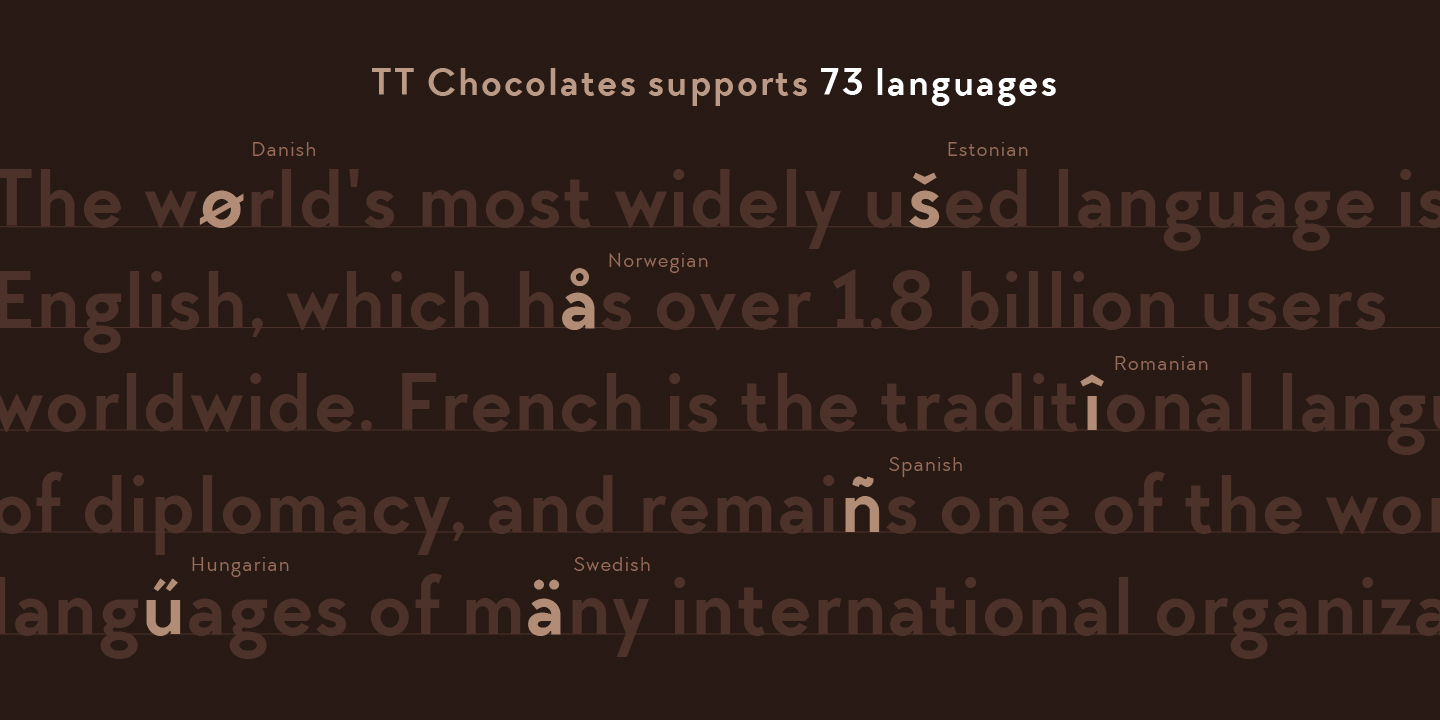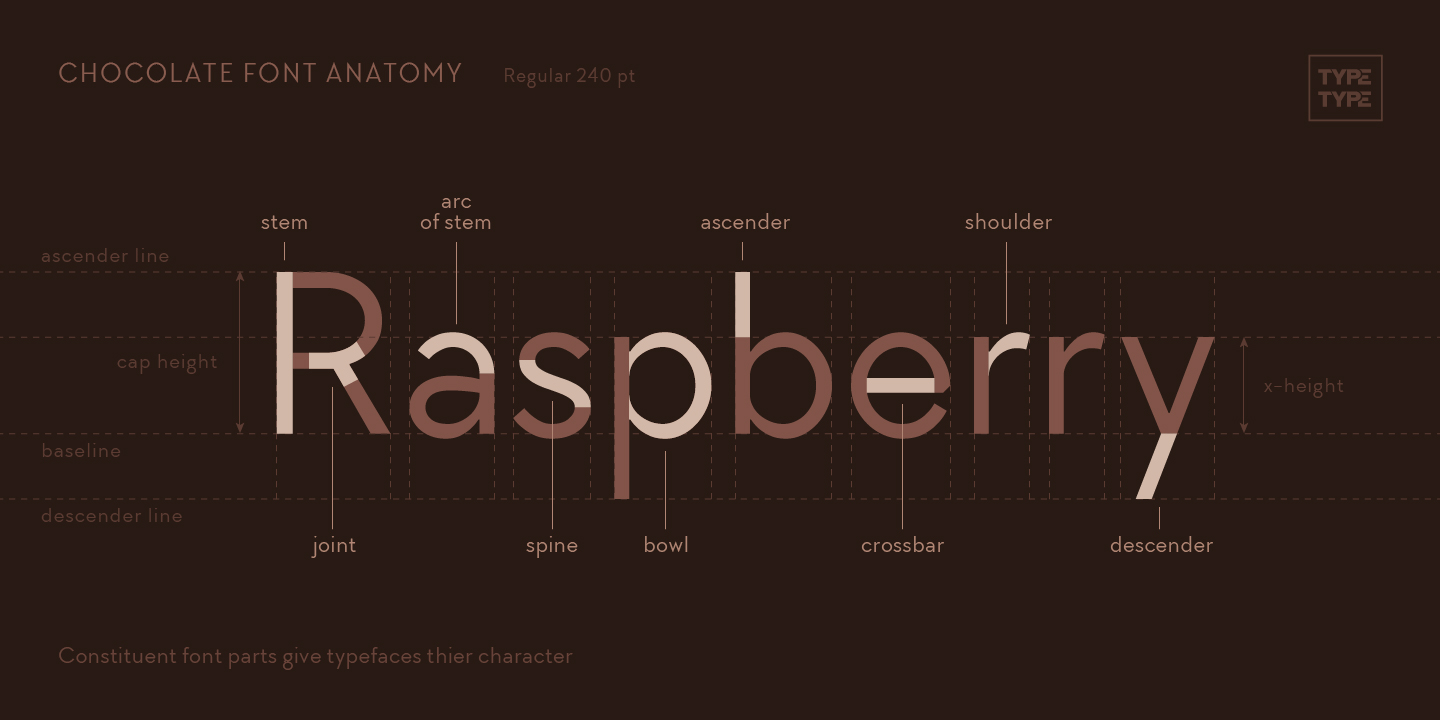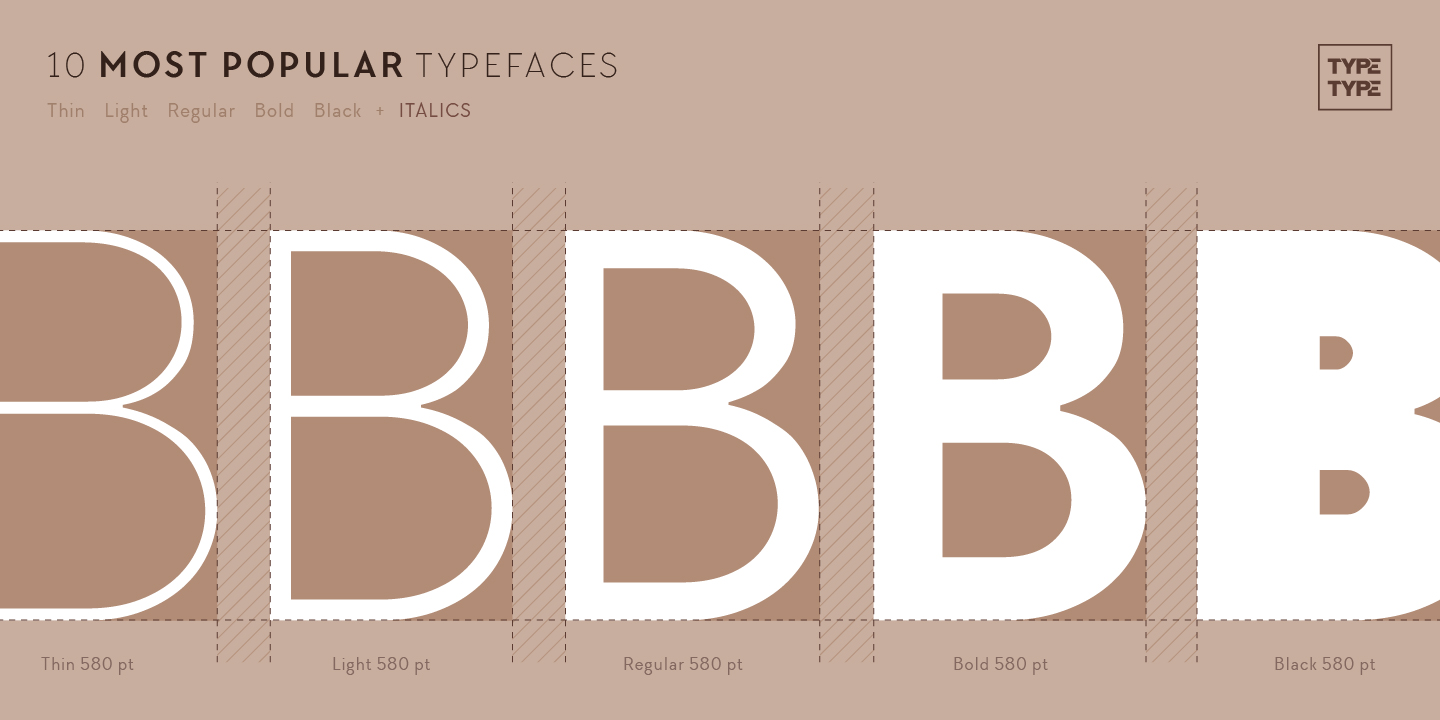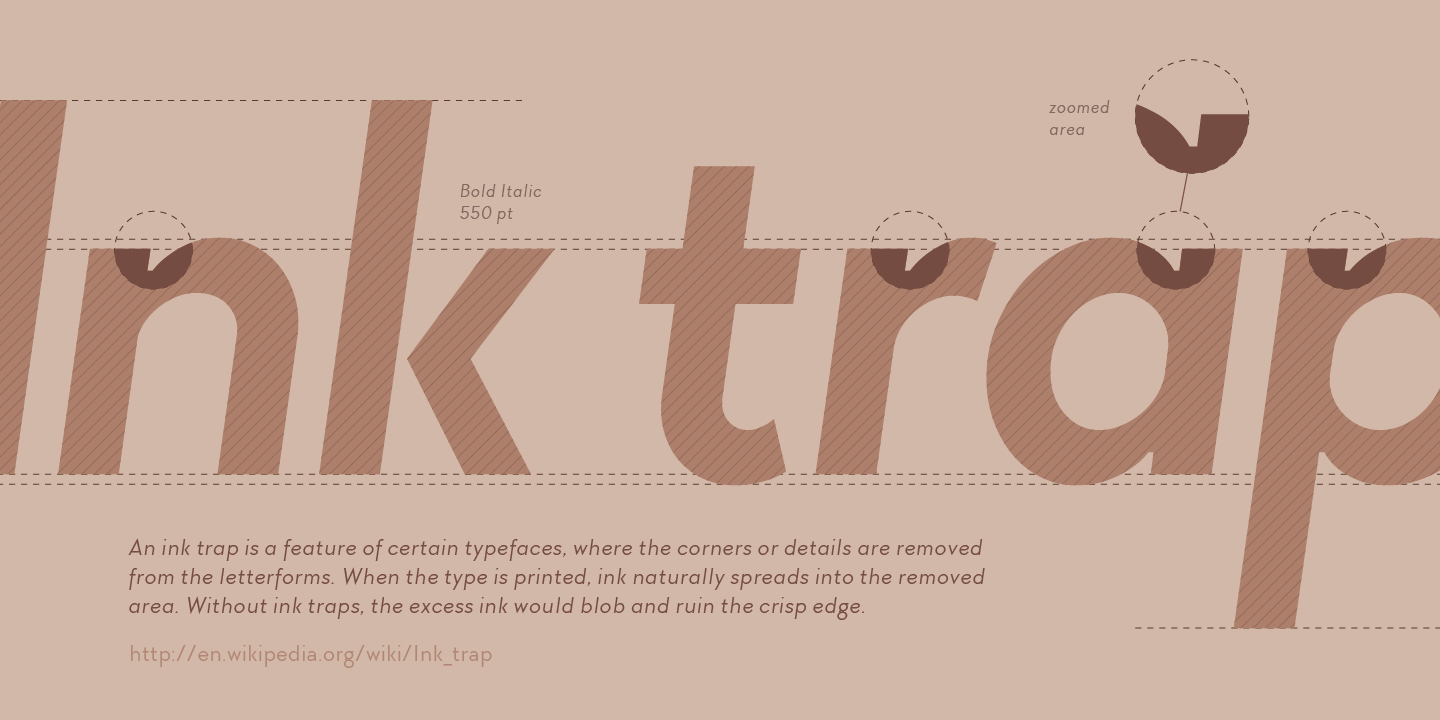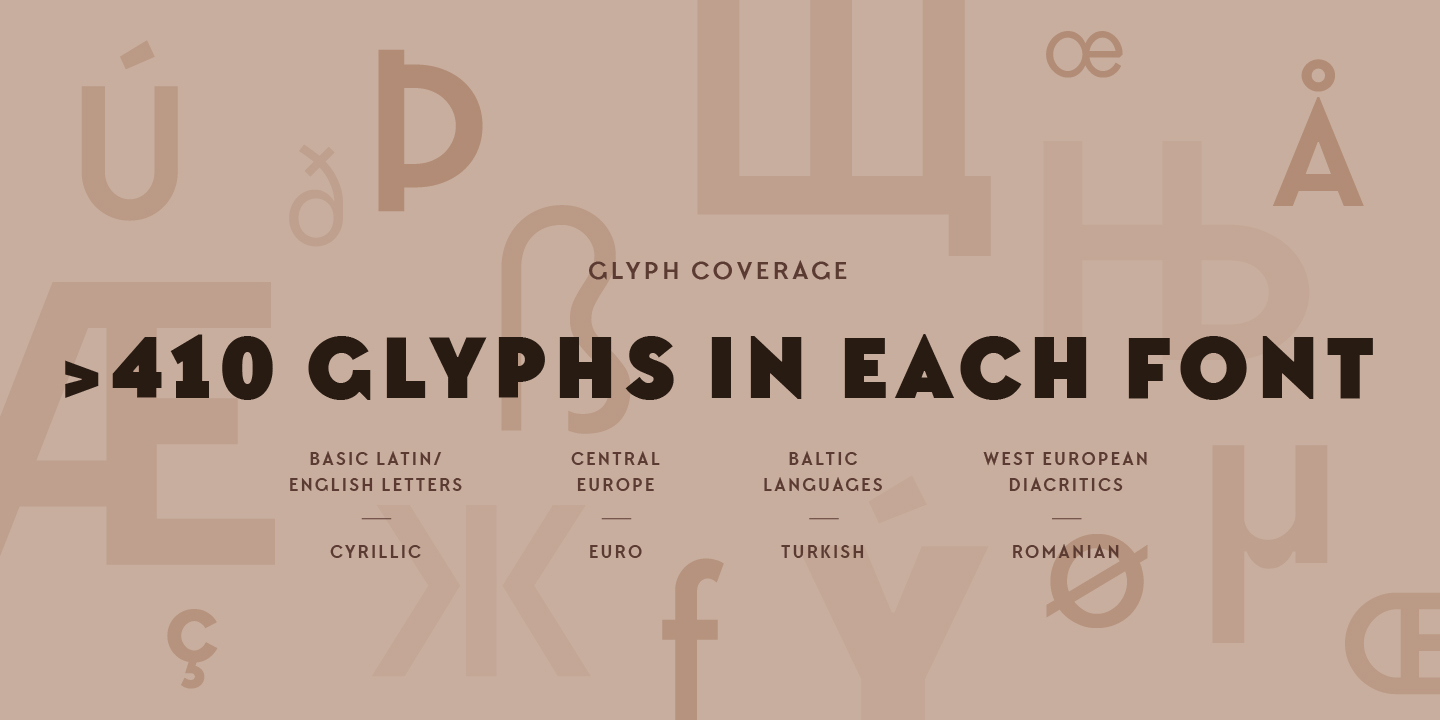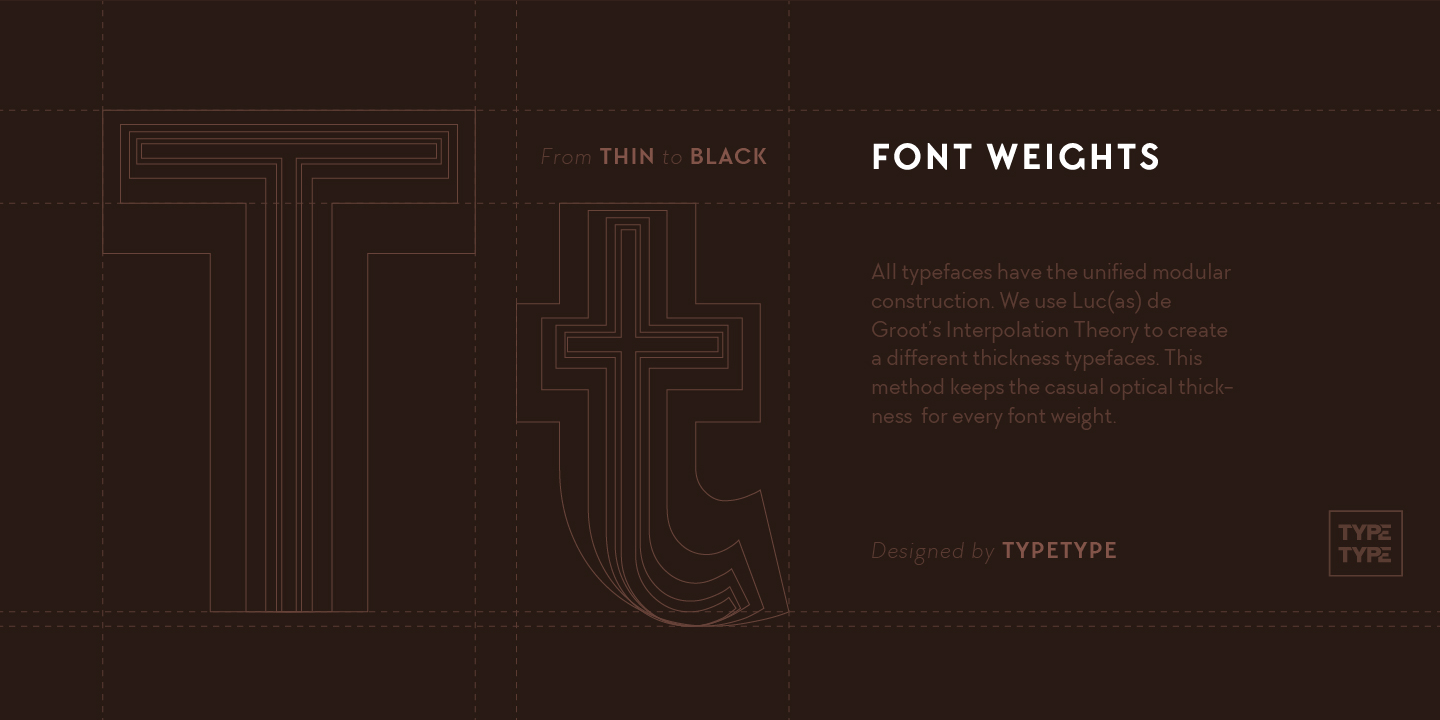
by TypeType
TT Chocolates is a geometric grotesque, which was created for beautiful and elegant things such as packages of chocolate. We wanted to make a font family as delicious as a dessert, and a perfect ingredient for your designs.
The Chocolates font family contains the five most popular weights: Thin, Light, Regular, Bold, Black and Italics.
Designed by Ivan Gladkikh in 2015.